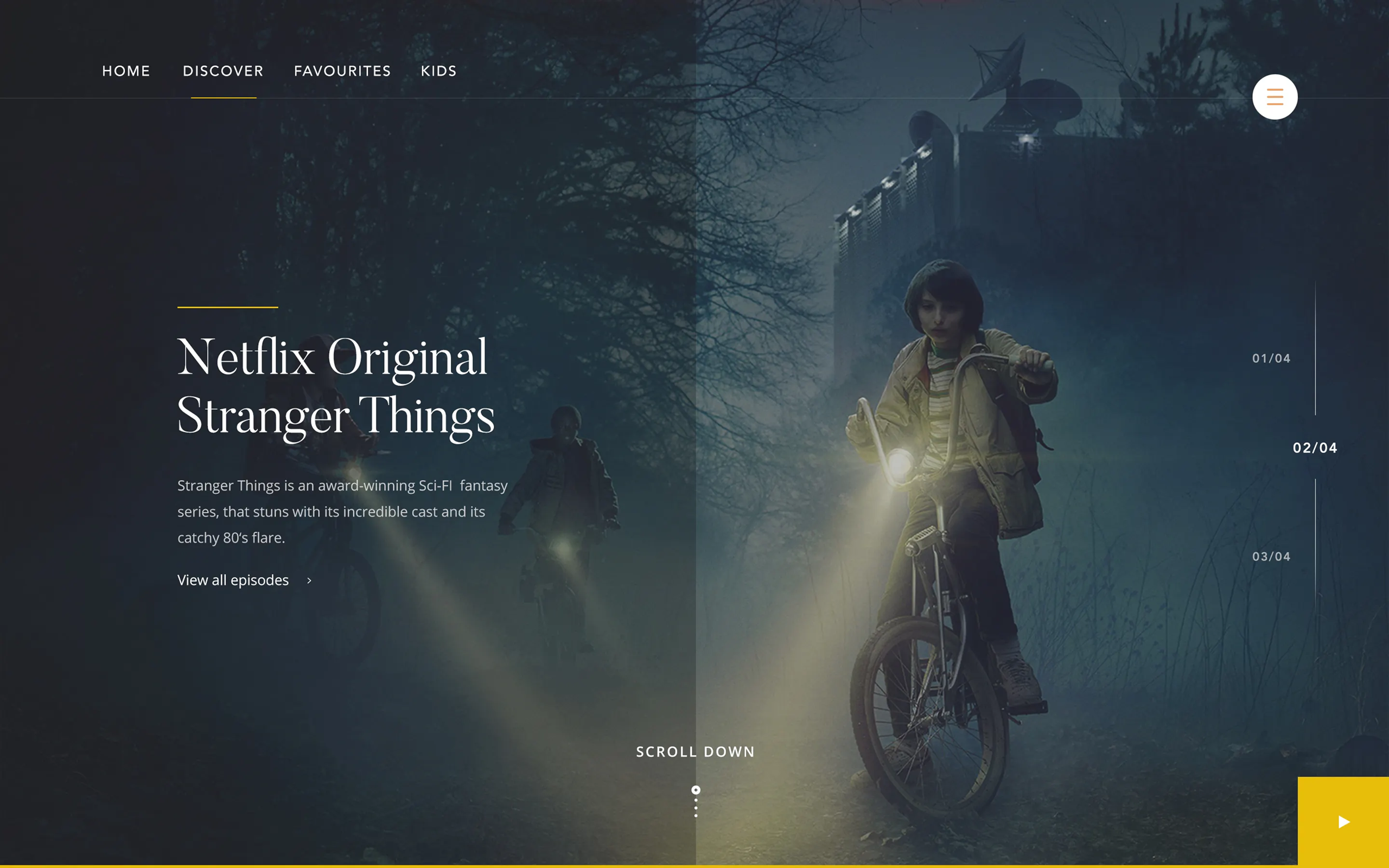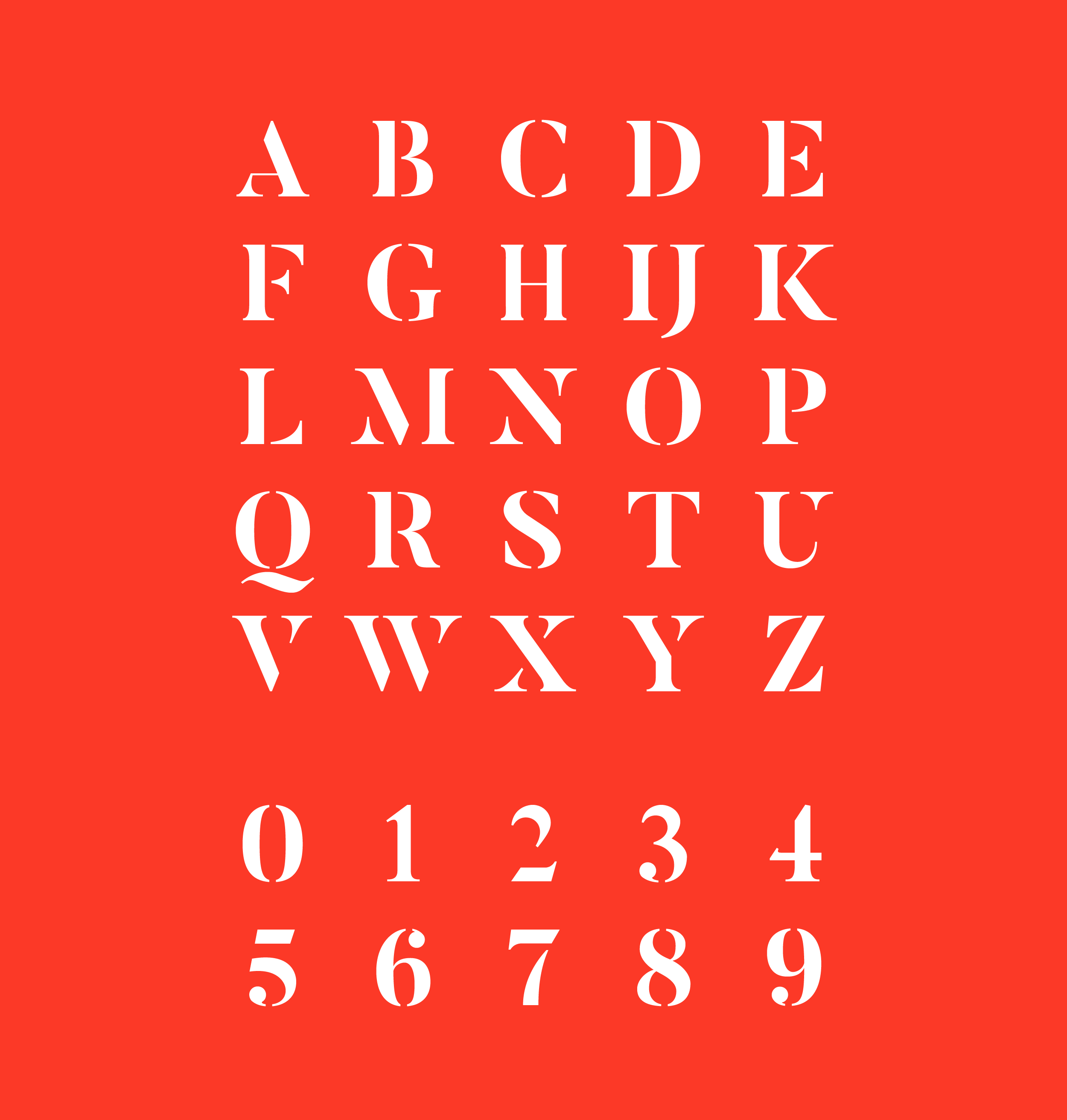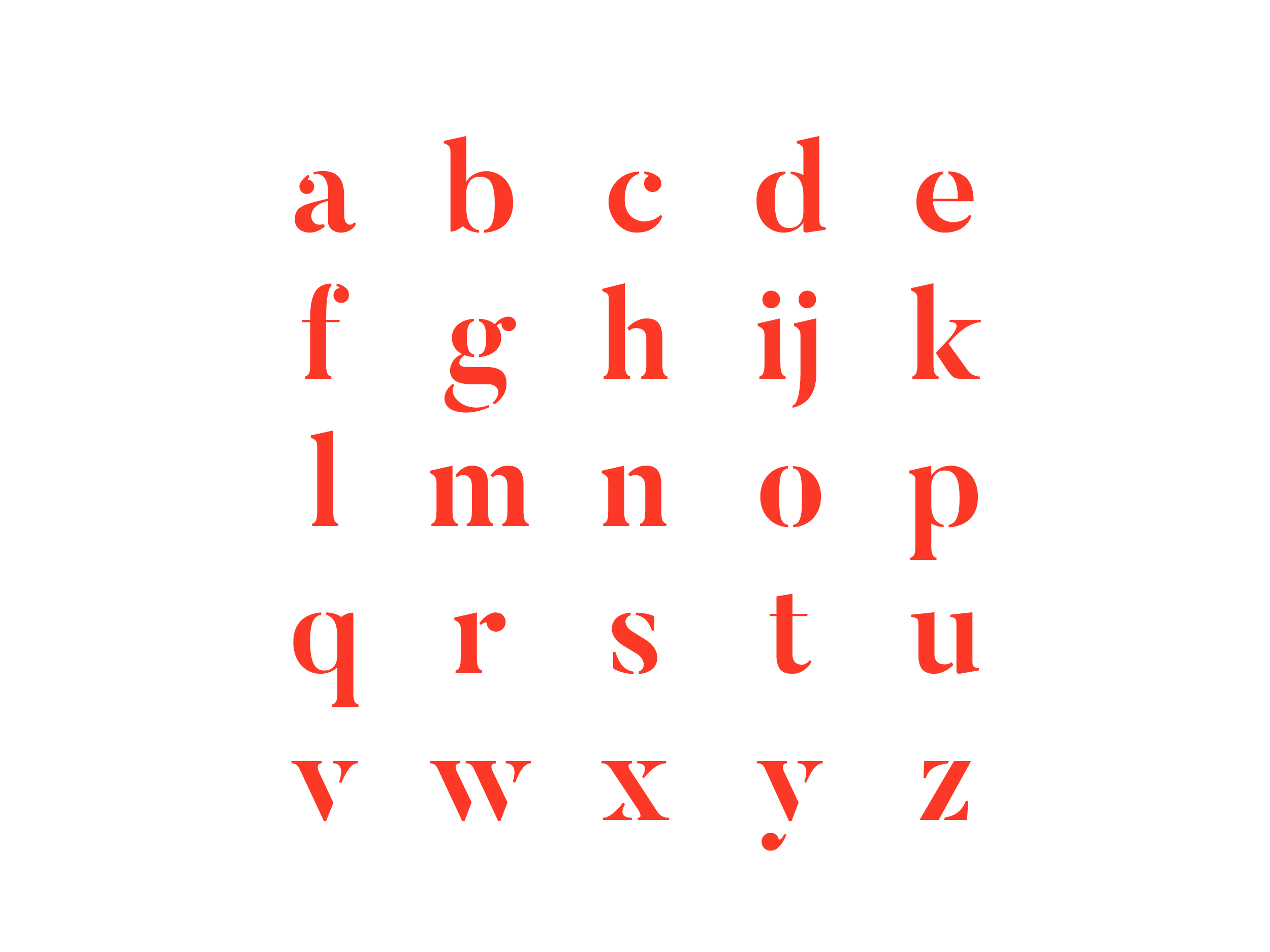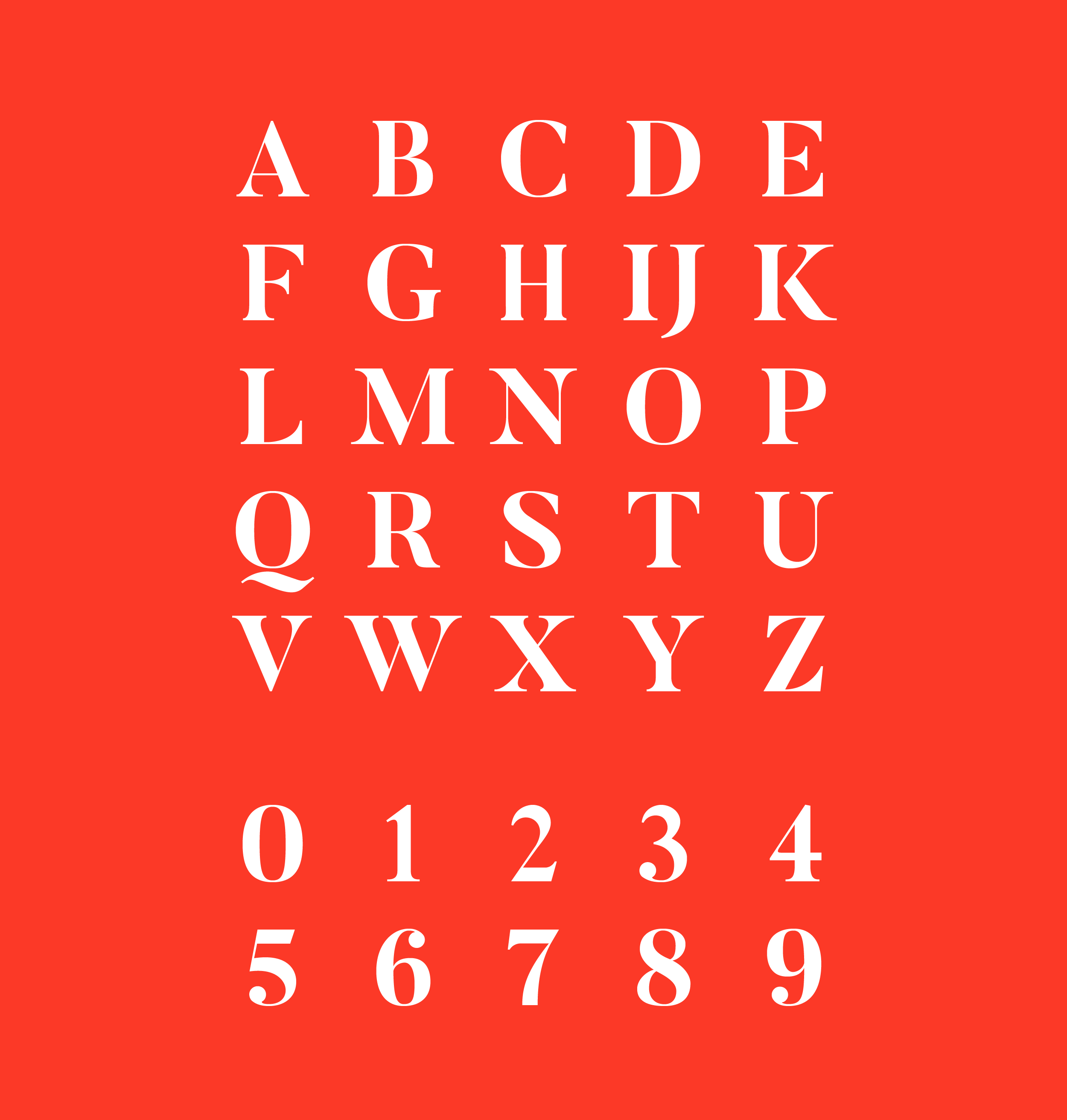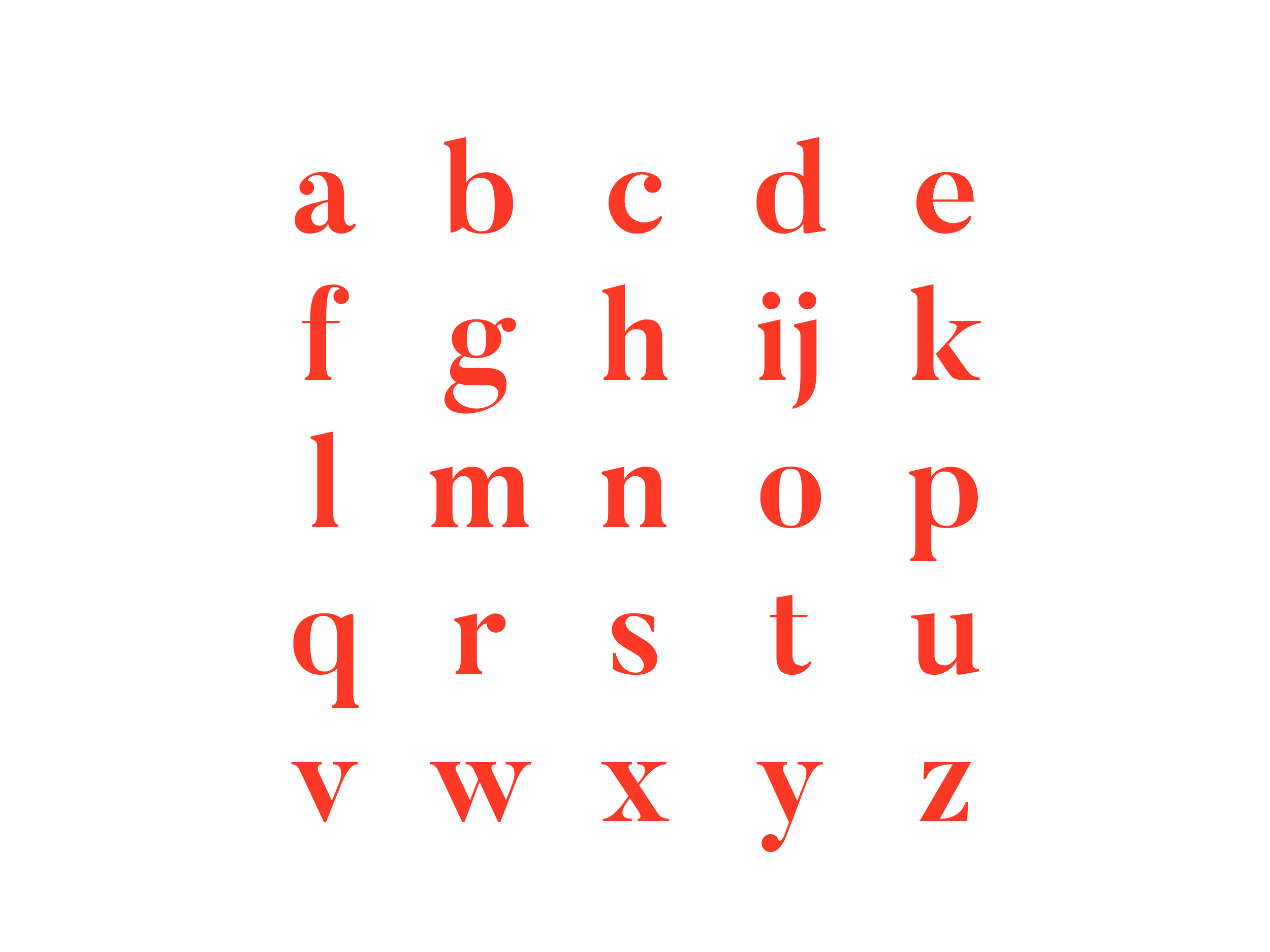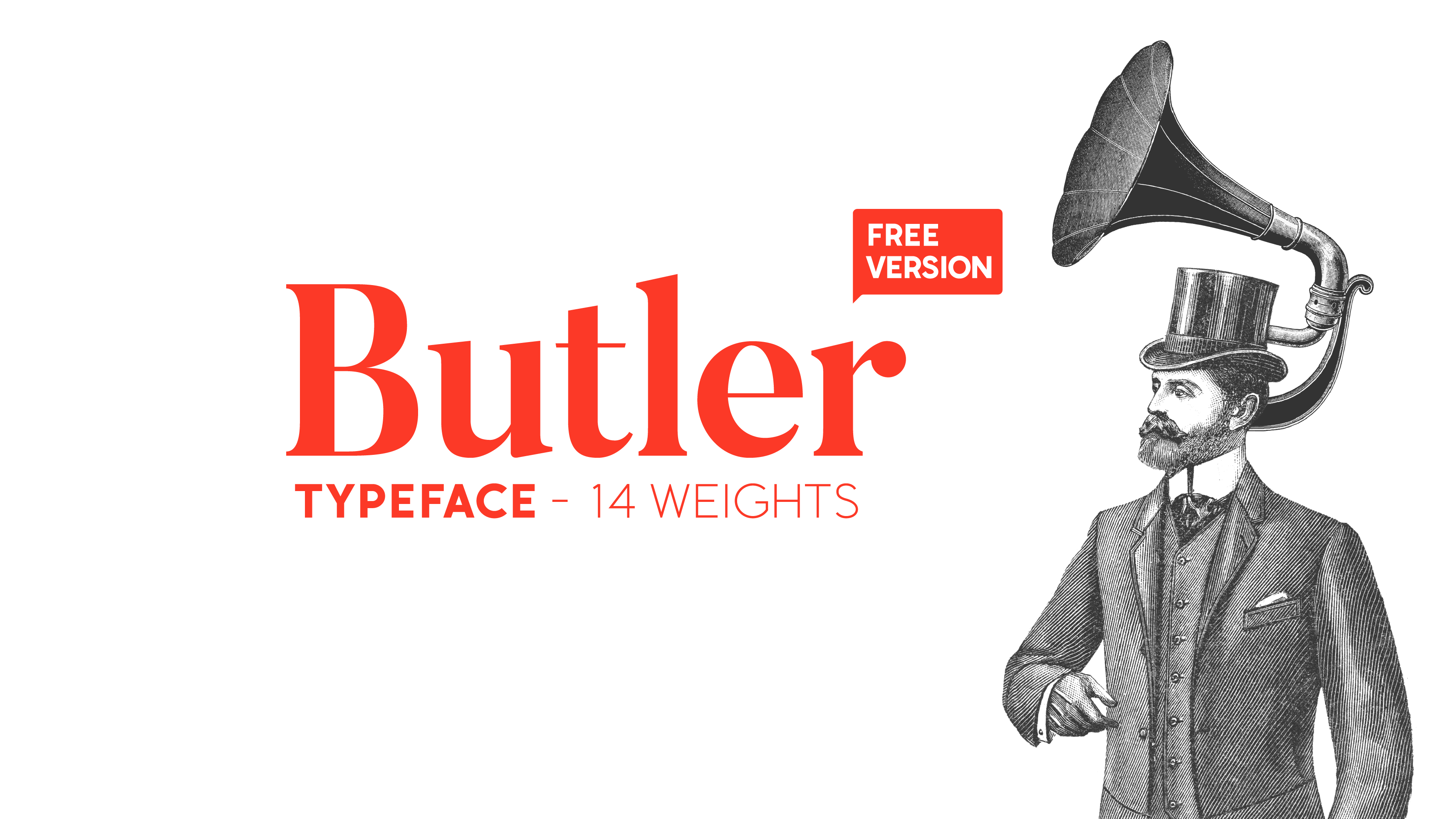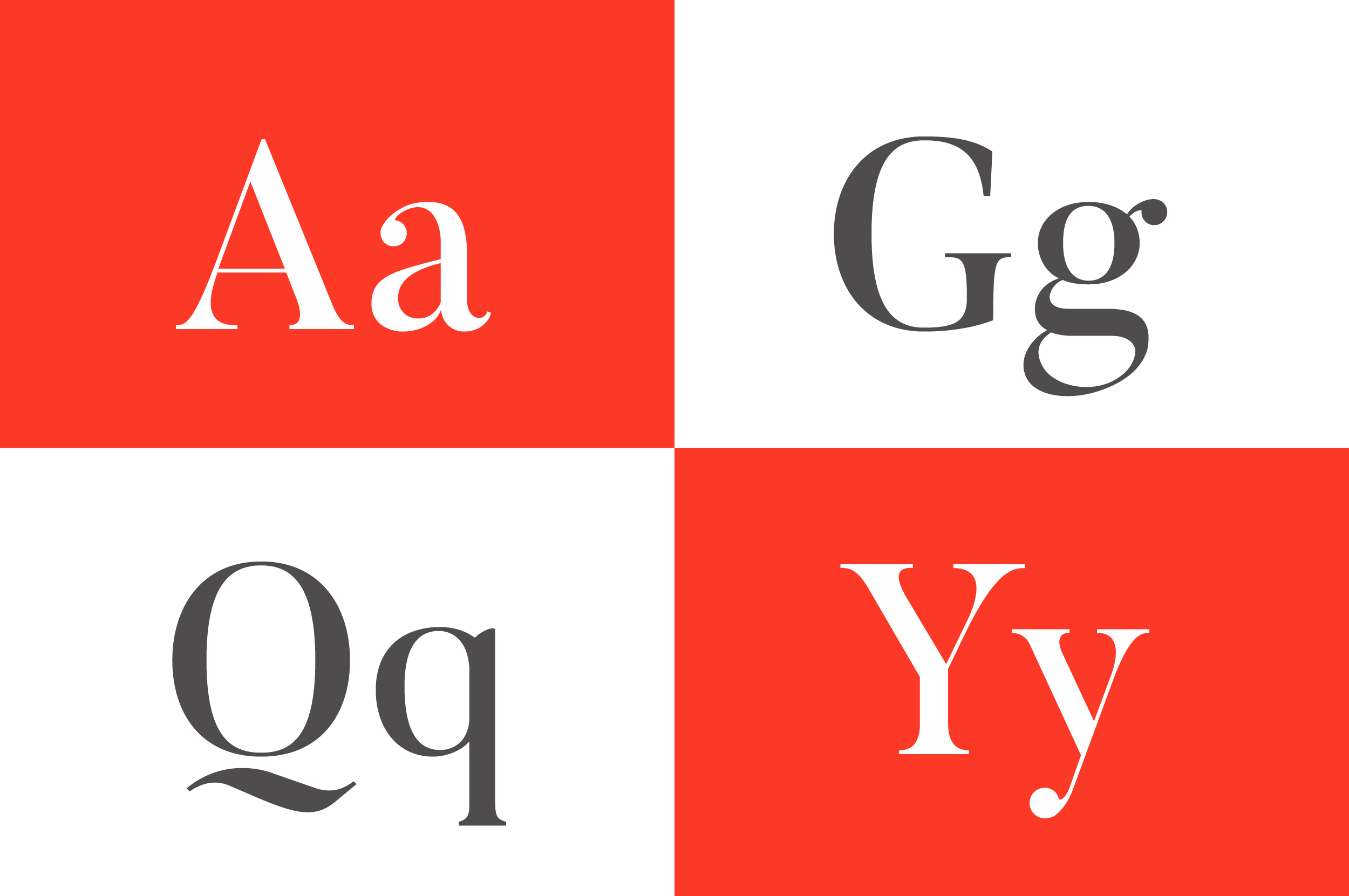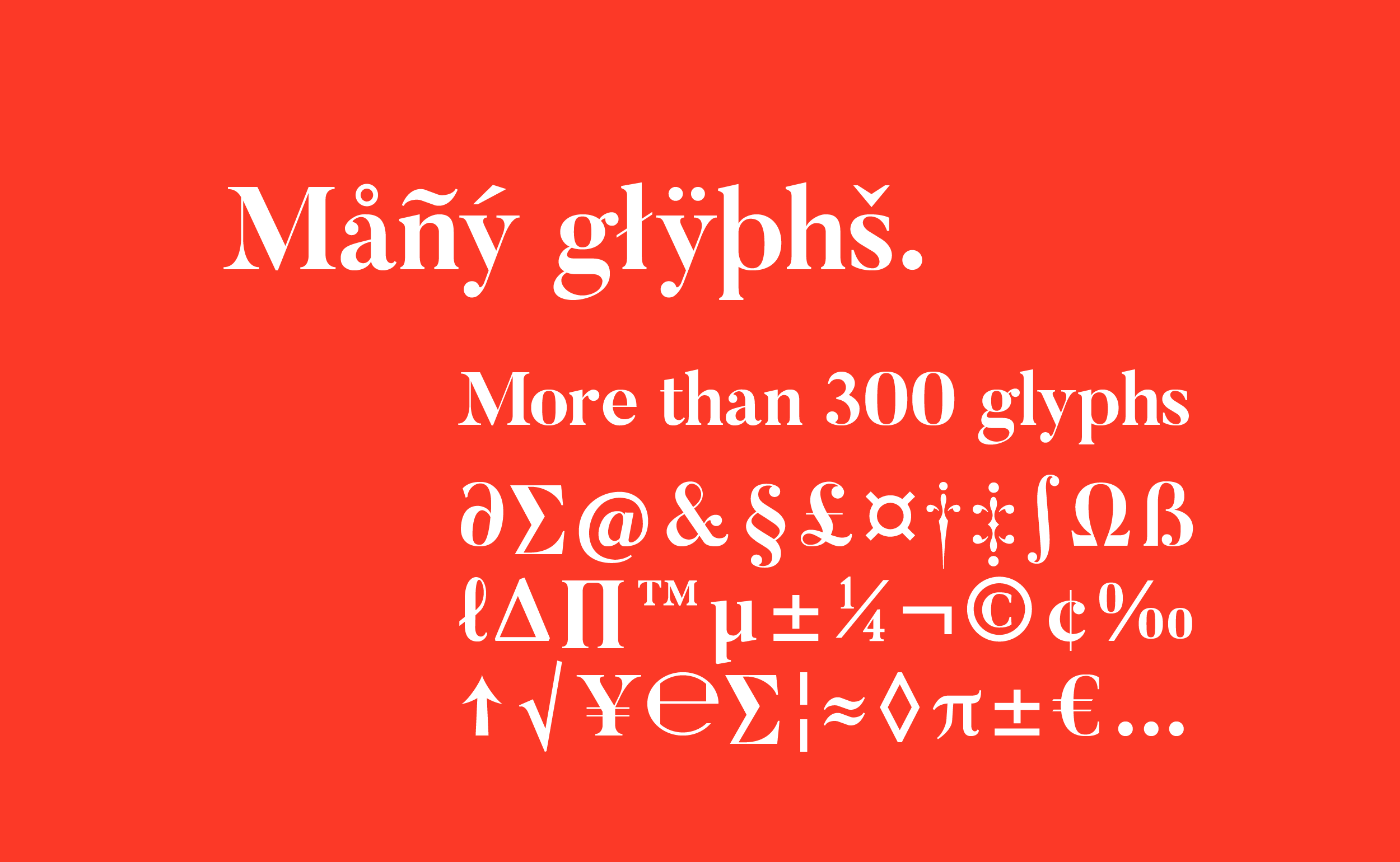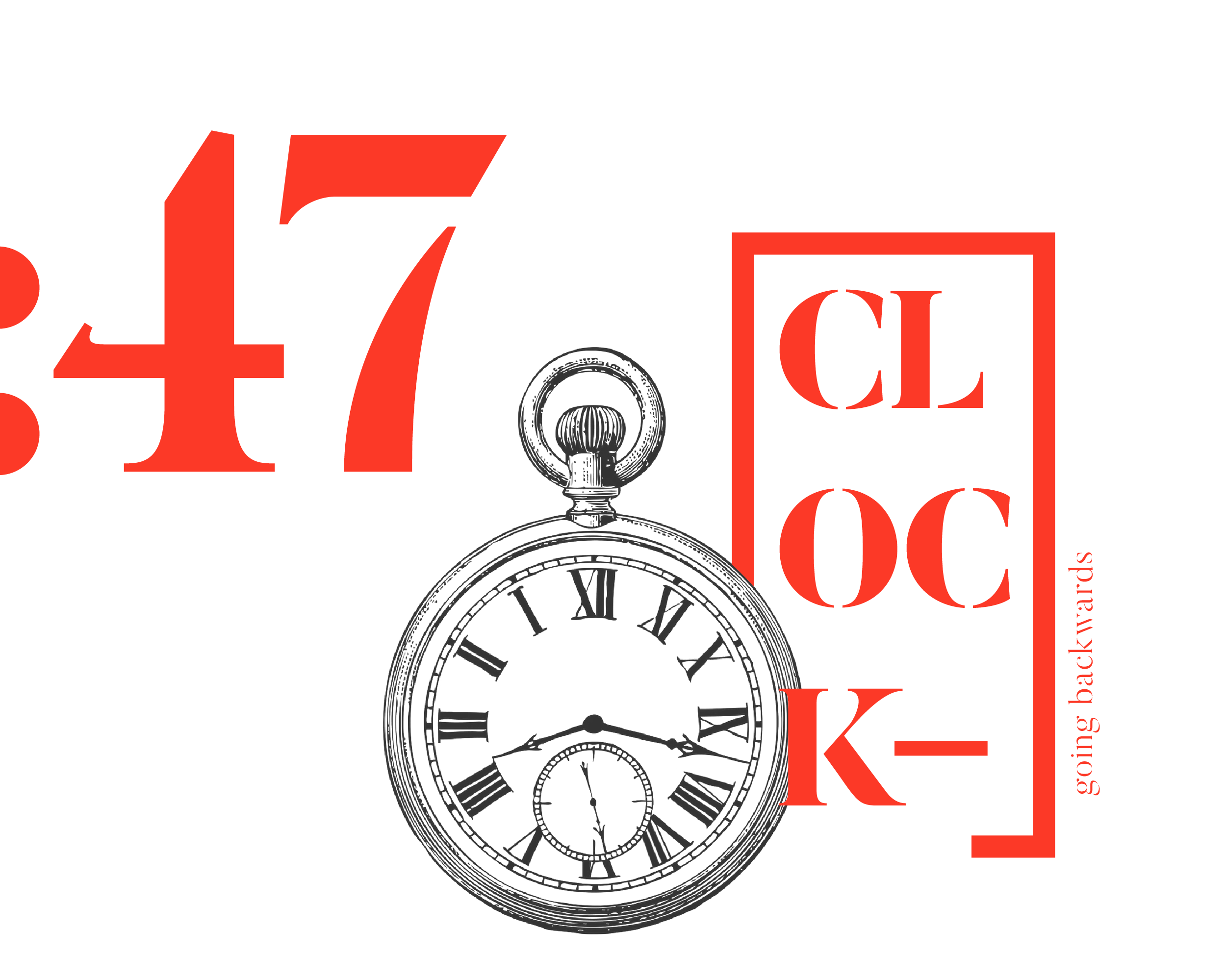
Butler – Typeface
Butler FREE VERSION is a free serif typeface designed in both a regular and a stencil version. The main goal was to bring a bit of modernism to serif fonts by reworking the curves and balances of classical serif families.
Great for posters, very big titles, books & fancy items, the highly contrasted Butler typeface is pleased to be at your service.
• More than 300 unique characters
• 8 regular weights
• 8 stencil weights
Characteristics
- Serif
- Stencil
- 16 weights
- 300+ unique characters
- Ligatures
- Text figures